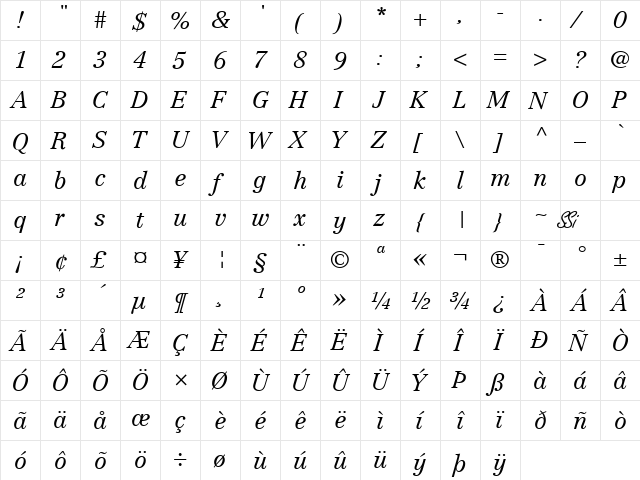
Century Reprise Light SSi Light Italic Font Preview
Design Context for Century Reprise Light SSi Typeface
Century Reprise Light SSi takes a measured approach to typography — its balanced proportions and neutral character make it a reliable workhorse for both digital and print work. The dynamic lean of this cut emphasises speed and emphasis in any layout. Its slender proportions lend an understated elegance to any composition.